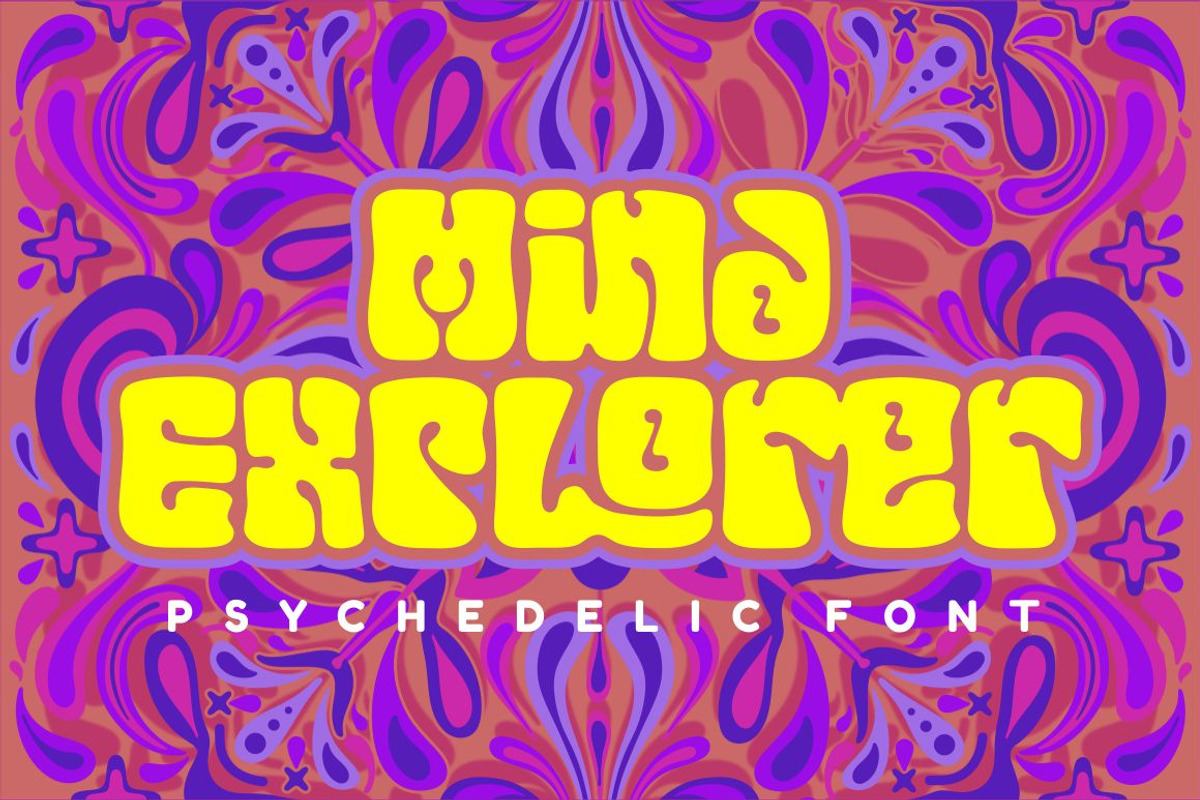
Mind Explorer - Psychedelic Font Free Download
Mind Explorer Psychedelic Font Free Download
Mind Explorer Psychedelic Font Free Download is a bold and colorful typeface designed to capture the vibrant and surreal world of psychedelic art. With its flowing, wavy shapes and experimental design, this font is perfect for album covers, posters, event promotions, music branding, and anything that needs a groovy, mind-bending visual impact.
Whether you're creating a psychedelic music festival poster or designing retro-themed merchandise, Mind Explorer adds that unique, mind-expanding vibe to your typography. It’s the perfect font for designers who want their work to stand out with a bold, adventurous spirit.